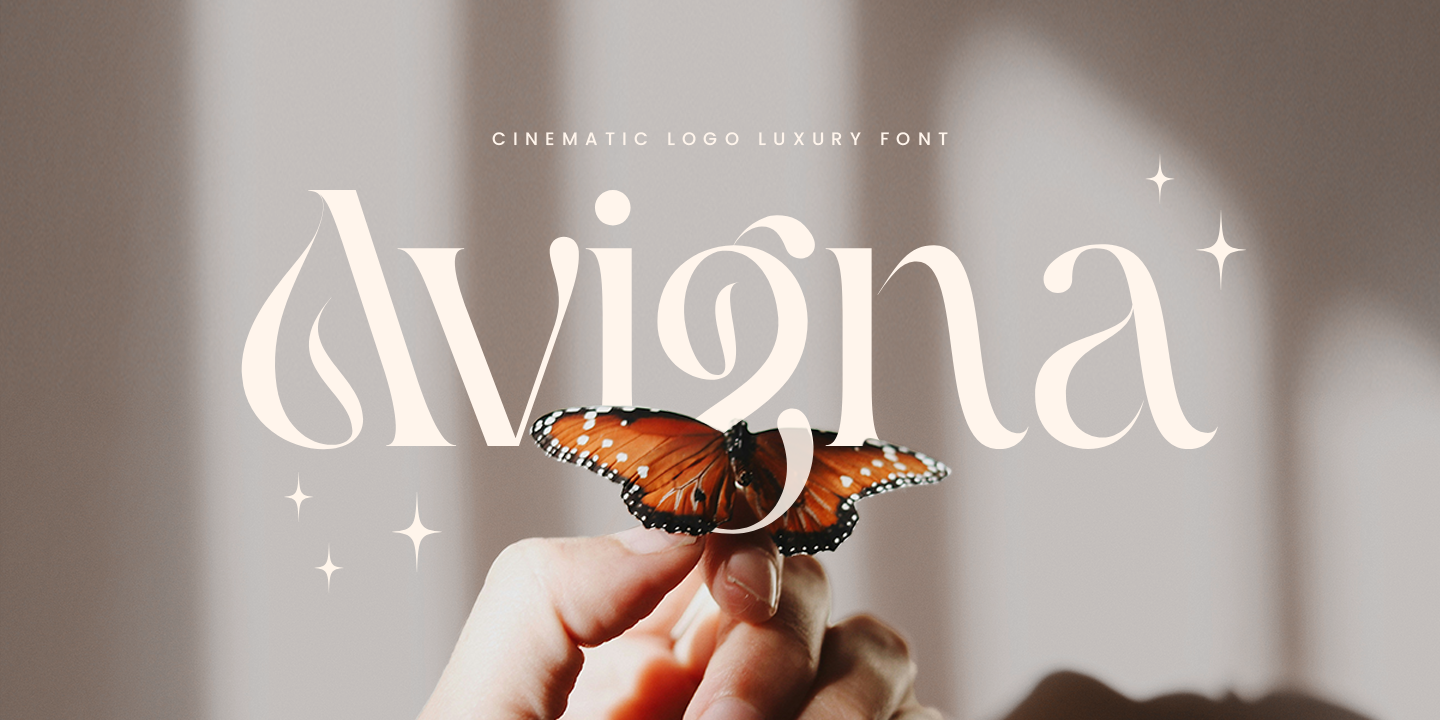
Avigna Font is perfect for premium wine estate branding, luxury vineyard marketing, French countryside tourism, sophisticated wine tasting events, artisan winemaker communications, heritage château signage, exclusive wine club materials, gourmet culinary experiences, elegant wine bar promotions, and refined viticulture celebrations.
What makes Avigna Font exciting is its vineyard sophistication that perfectly captures the refined elegance and terroir excellence found in premium winemaking traditions and French viticulture heritage. This typeface features elegant letterforms with vineyard-inspired proportions and wine culture details that evoke the sophisticated craftsmanship and centuries-old traditions of fine winemaking. The font's refined personality and viticulture authenticity make it ideal for wine industry brands seeking to convey quality, tradition, and the sophisticated excellence that comes from premium winemaking and vineyard heritage.
Avigna Font family includes sophisticated weight variations and vineyard alternatives that enhance its wine appeal while providing design flexibility for viticulture and luxury applications. The font features elegant ligatures, wine-themed ornaments, and vineyard character variations that create authentic wine country atmosphere for viticulture and luxury lifestyle branding.
Wine estates and luxury beverage companies consistently choose Avigna Font Free Download for projects requiring authentic vineyard appeal and wine culture credibility. The font's sophisticated character excels in applications targeting wine connoisseurs, luxury lifestyle enthusiasts, and vineyard visitors who appreciate genuine winemaking tradition and viticulture excellence. Whether you're designing for wine estates, luxury restaurants, or vineyard tourism, this refined typeface delivers the wine authenticity and vineyard sophistication that resonates with audiences seeking genuine wine culture and the refined elegance that defines premium viticulture and French winemaking excellence.